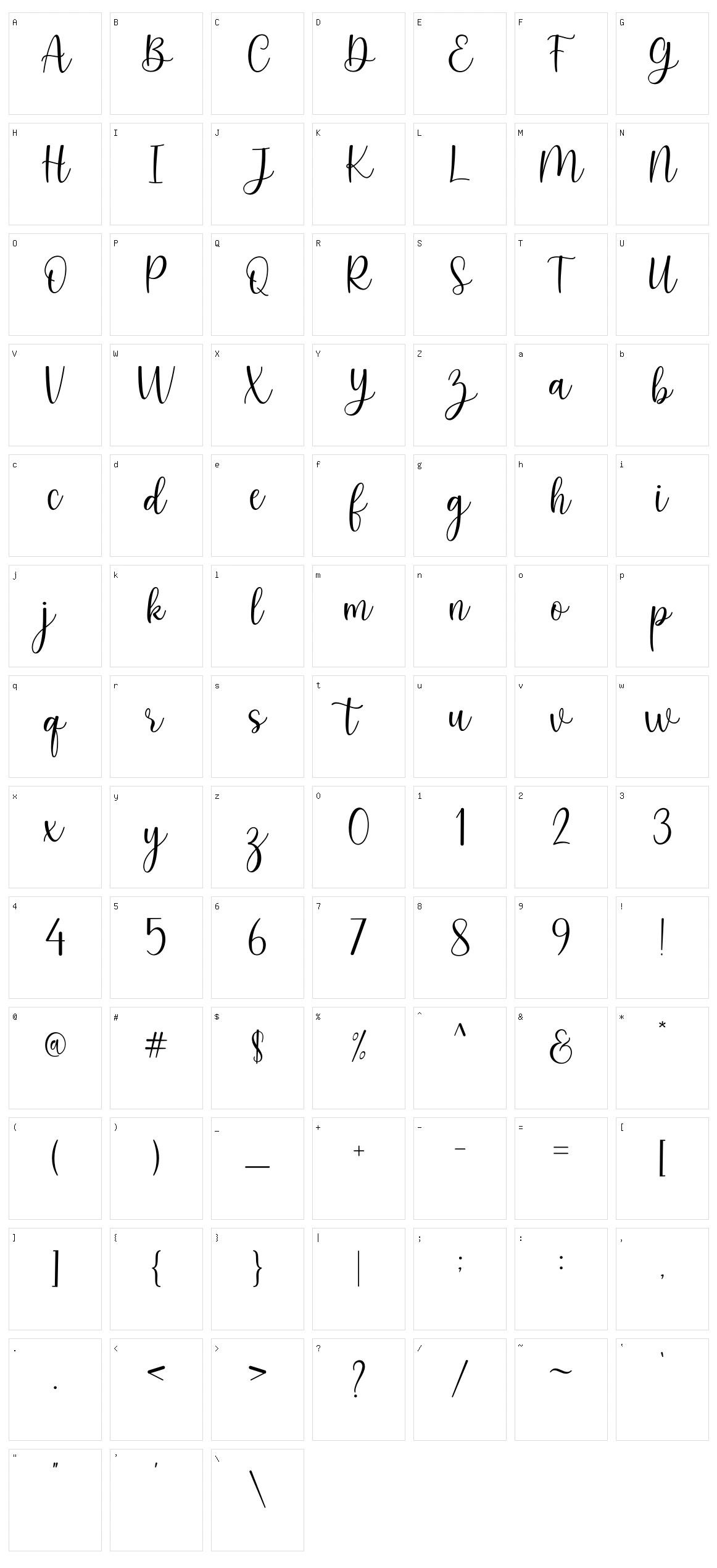
The free font Keysha is carefully designed by MJB Letters, showcasing a thoughtful balance of creativity and usability and falls under the Script font style. When you download the ZIP file, it contains only 35.47 KB of font files, making it lightweight and quick to download. Please review the license details below to understand permitted usage and distribution rights. If license information is not available, we recommend using this font for personal projects only or contacting the author directly for commercial usage permissions.